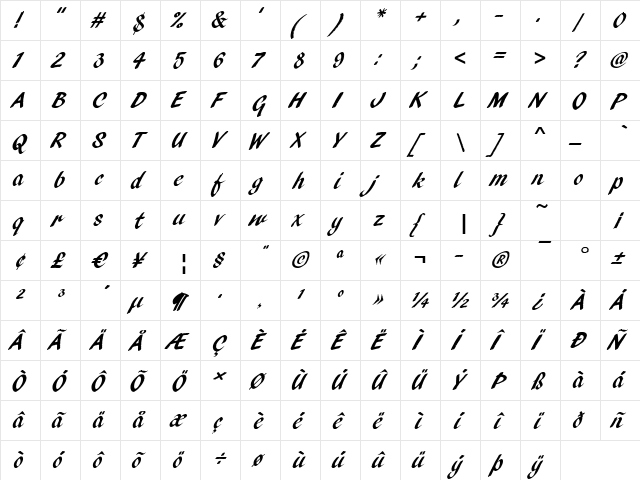
Pencil Regular Font Preview
Pencil Regular
Design Context for Pencil Typeface
Pencil is a composed and adaptable typeface that performs quietly and consistently across a wide range of design contexts.